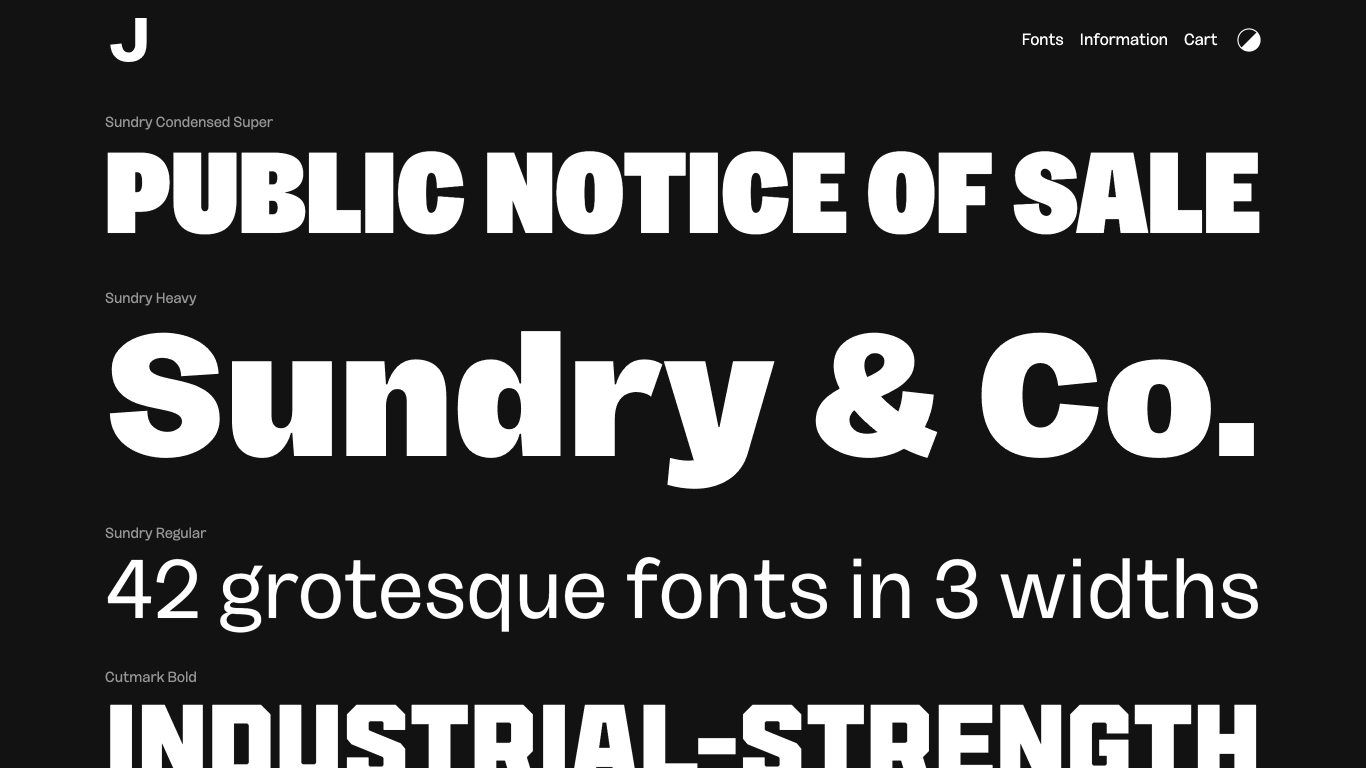
J Foundry
Canada
​J Foundry, originally known as Greyscale Type and also operating under Jason Vandenberg's name, rebranded around 2021. The foundry specializes in crafting typefaces tailored for brands, studios, and agencies with exacting design needs. Notable typefaces from J Foundry include Town (a versatile family for broad design use) and Stash (a distinctive, character-rich display font).